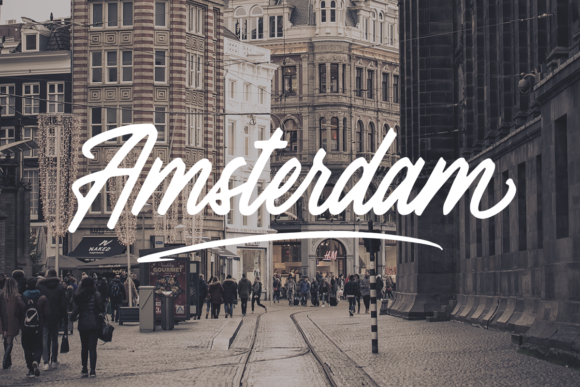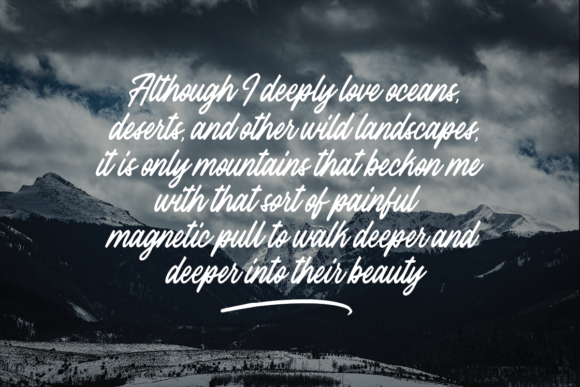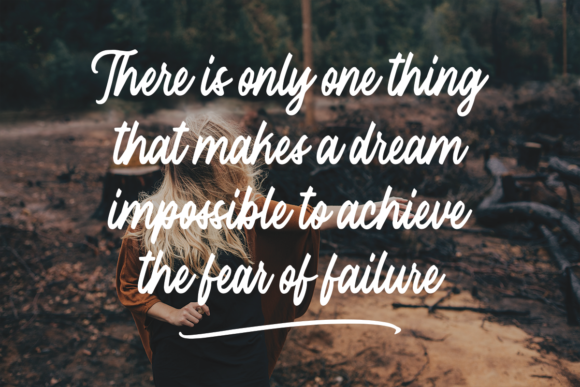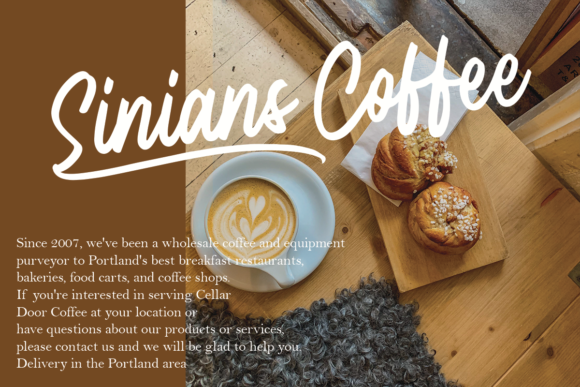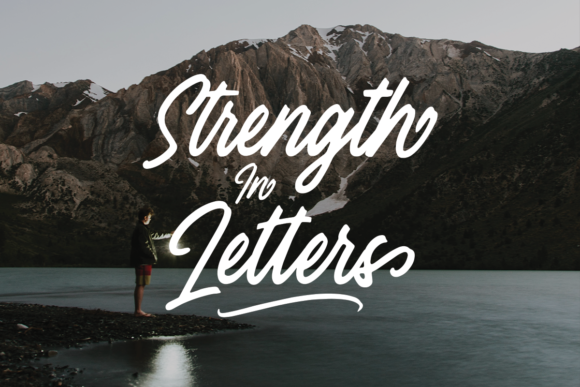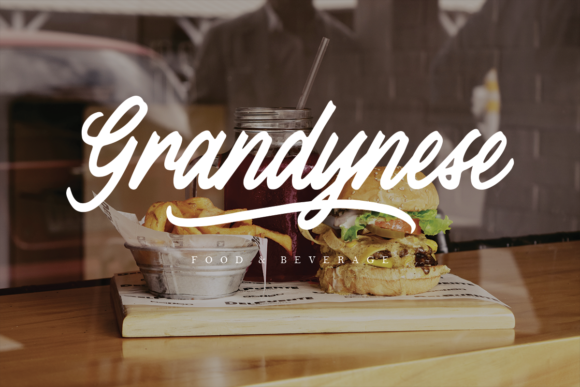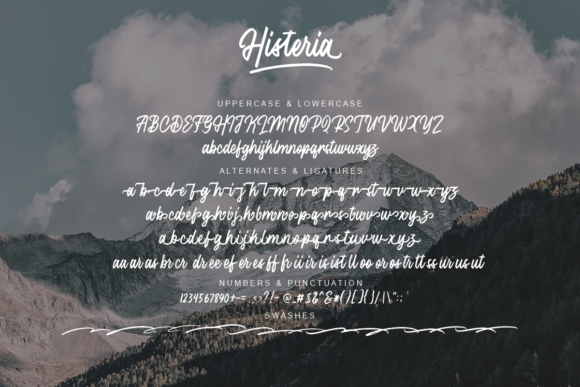
Histeria Script Font
About Histeria Script Font
Histeria is a classic script with a timeless appeal. Use it to add a touch of authenticity to any design project.